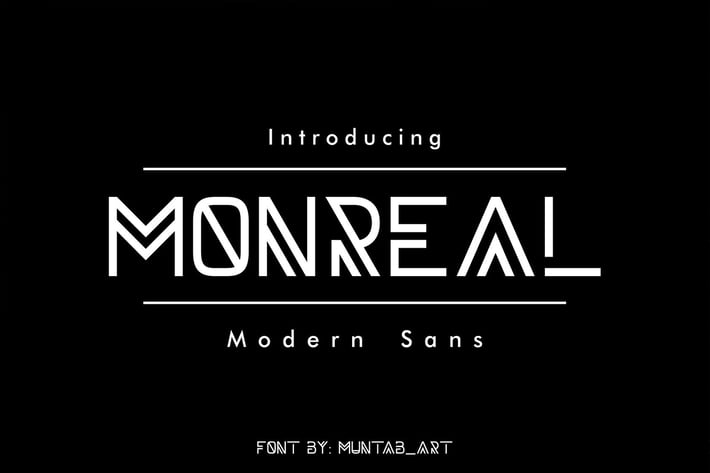
Monreal | Modern Font
Monreal fonts includes uppercase letters, numerals, a large range of punctuation. Sans serif font with modern style. Created for poster, web design, branding, illustrations, badges and some other works.